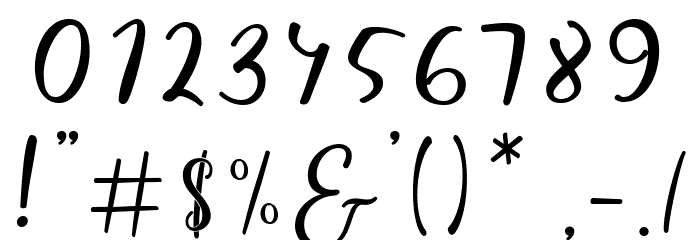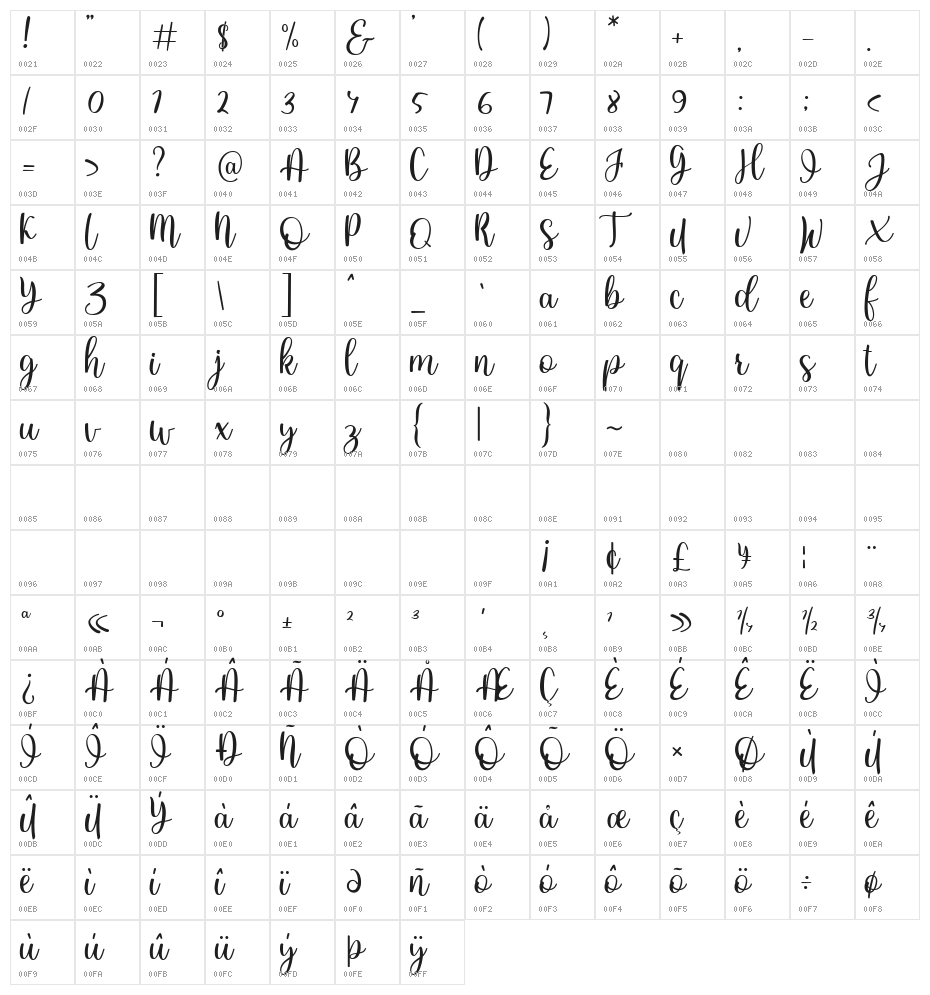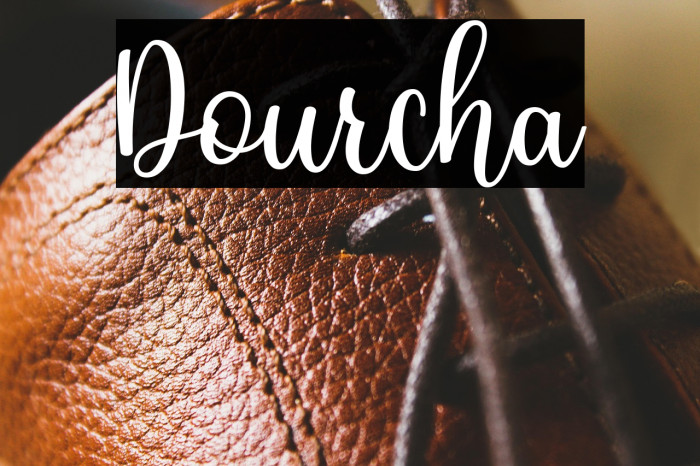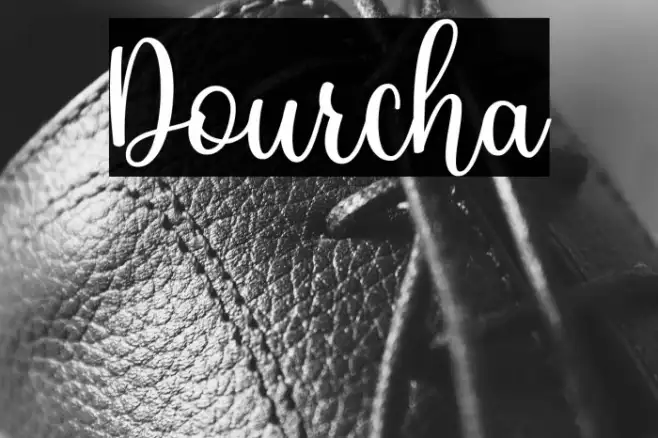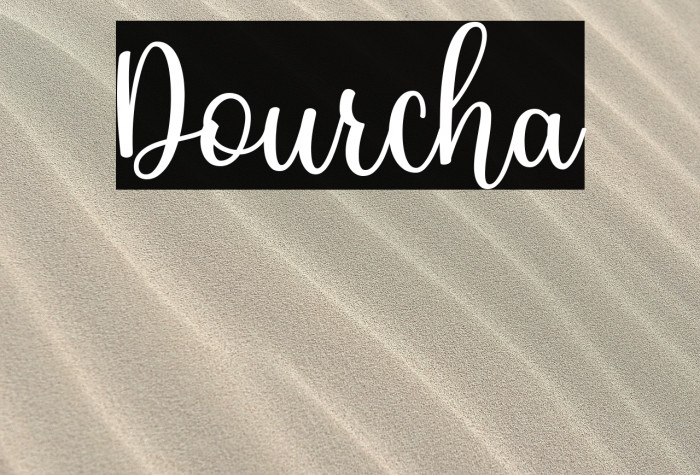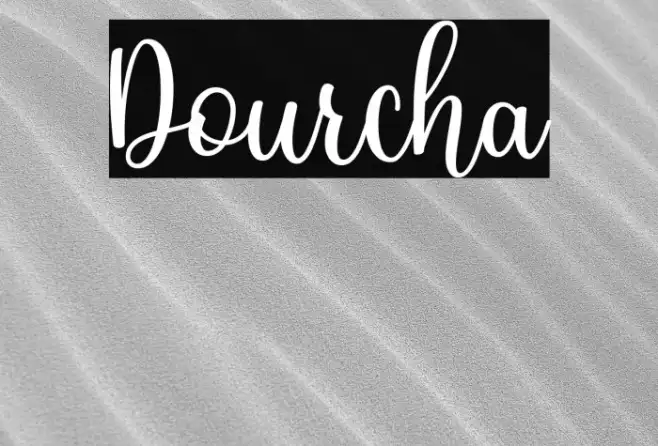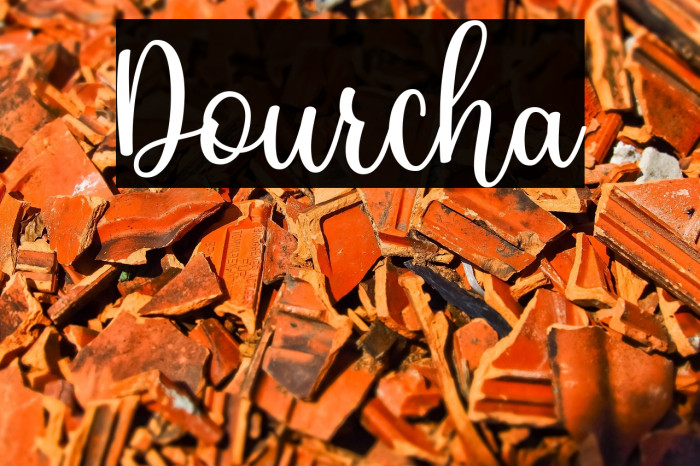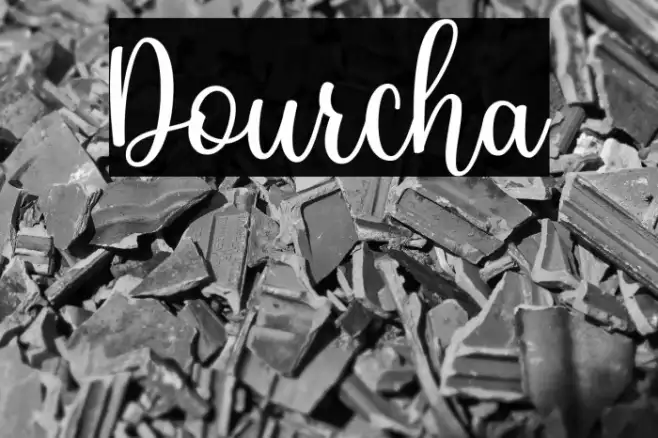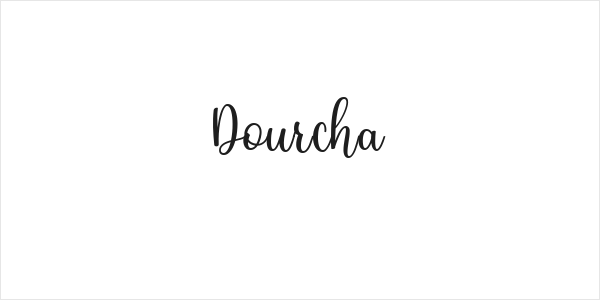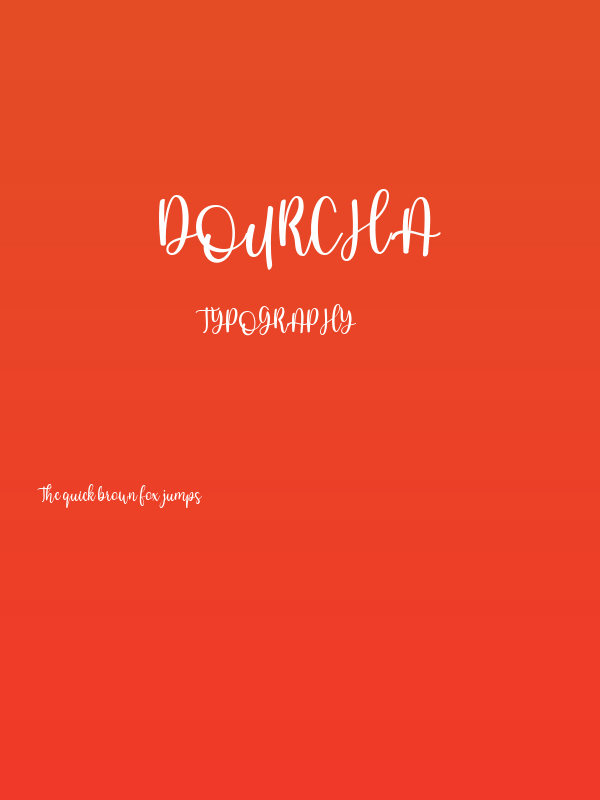
Dourcha Font
Dourcha Description
This font features a lively and flowing script style, characterized by its smooth, cursive strokes and elegant loops. The uppercase letters are bold and expressive, with a playful yet sophisticated flair. The lowercase letters maintain a consistent rhythm, enhancing readability while retaining a charming handwritten appearance. Numbers and special characters are crafted with the same attention to detail, ensuring a cohesive look across all elements. This font exudes a sense of warmth and personality, making it ideal for projects that require a personal touch.
| Proposed Projects | Ideal for wedding invitations, greeting cards, branding, and social media graphics. |